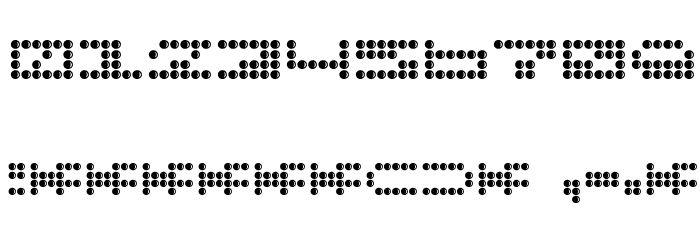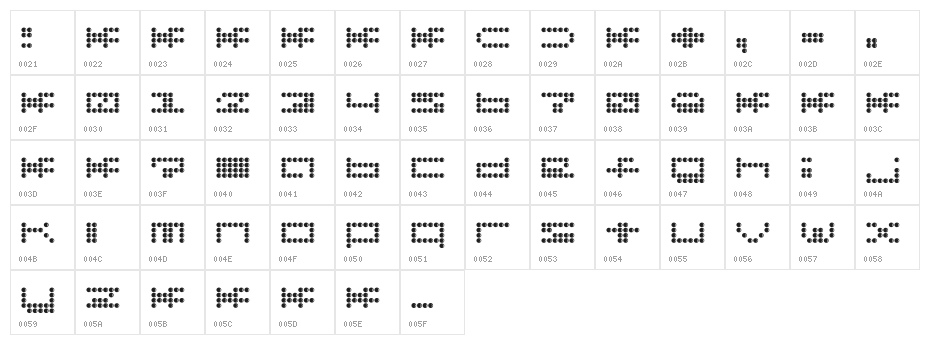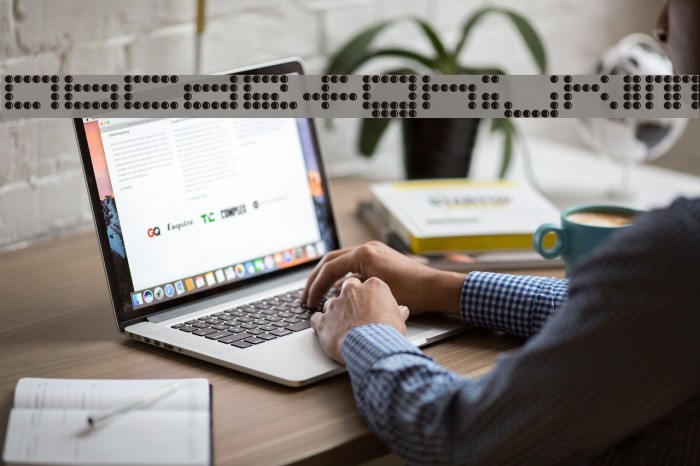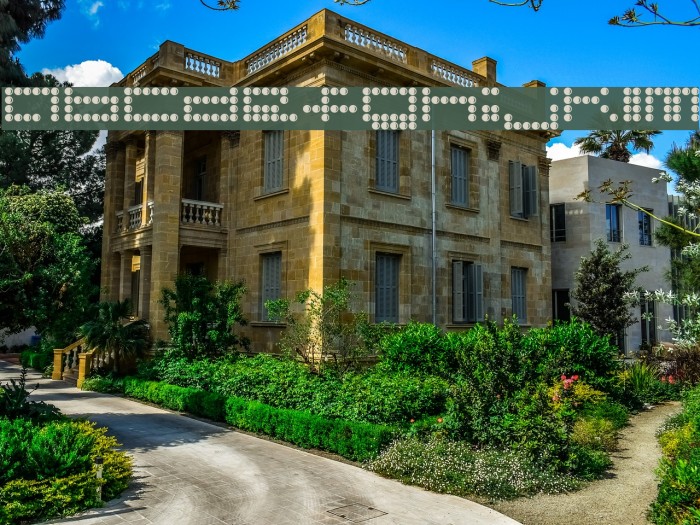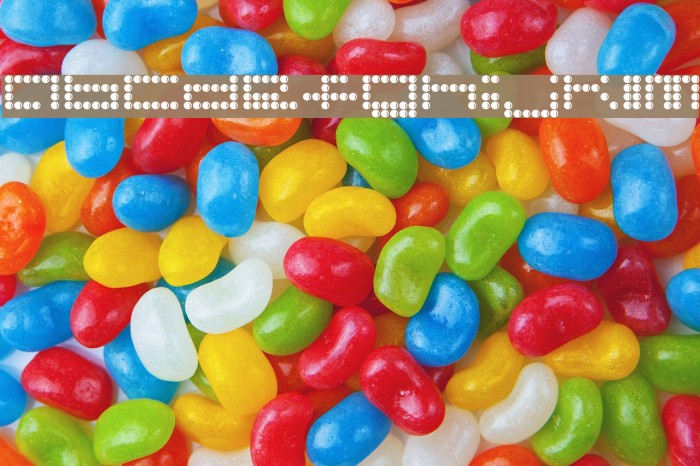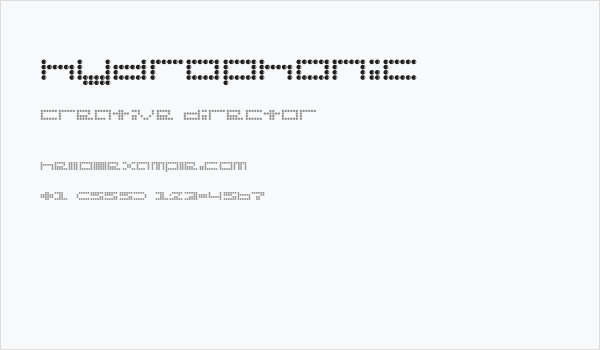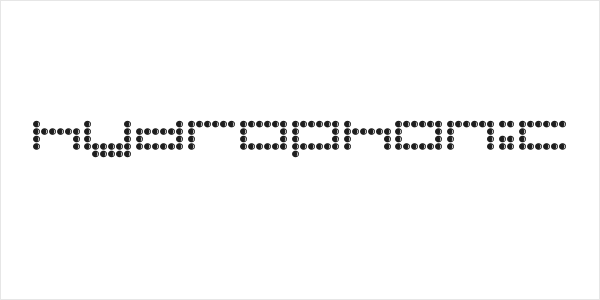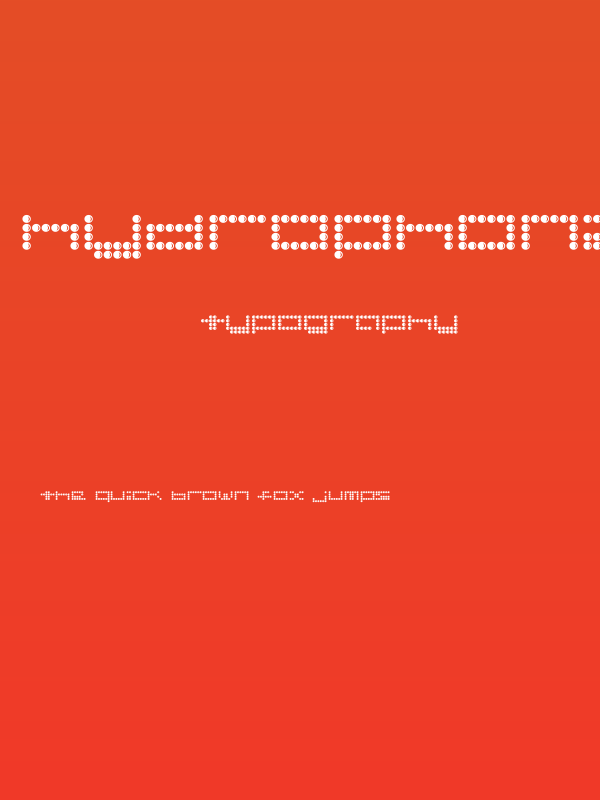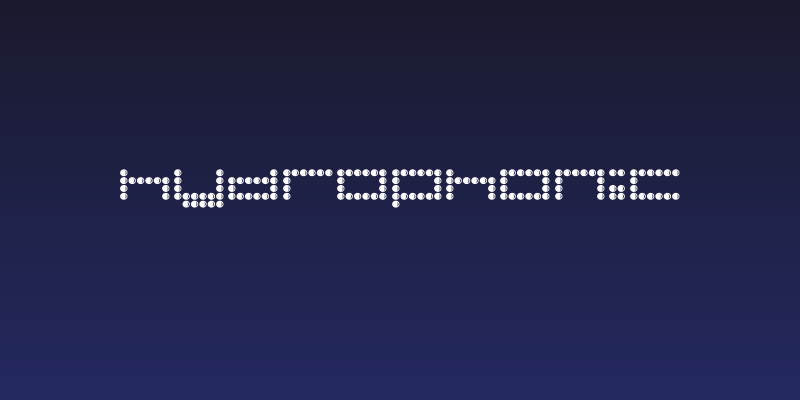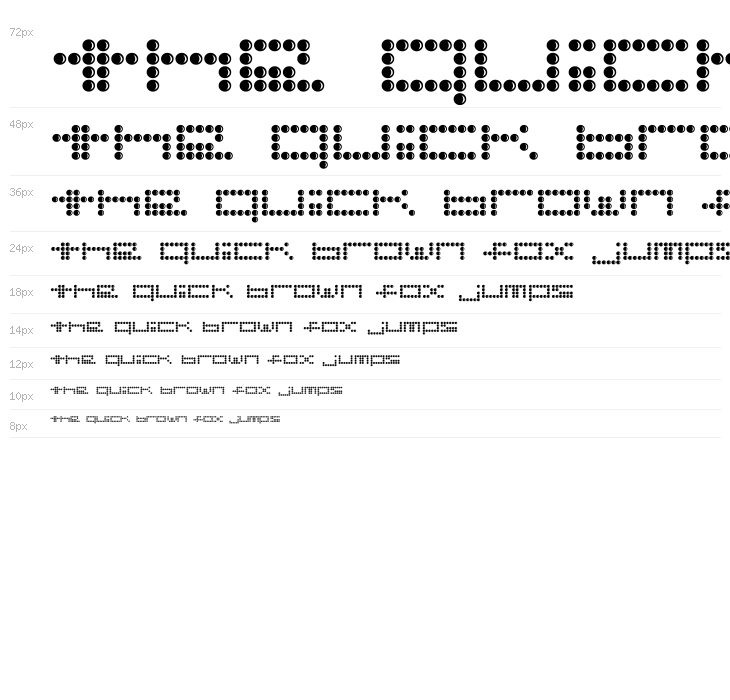
Hydrophonic Font
Hydrophonic Description
This font features a unique design composed entirely of small, evenly spaced dots forming each character. The style is highly geometric and structured, giving it a modern and digital appearance. Each letter and number is crafted with precision, maintaining uniformity across the set. The font's dotted pattern creates a sense of rhythm and movement, making it visually engaging. It is particularly suitable for creative and tech-oriented projects, where a futuristic or digital aesthetic is desired. The characters are easily distinguishable, despite the unconventional design, ensuring readability.
| Use Case | Logos, Headlines, Digital displays |
| Proposed Projects | Ideal for digital art, tech branding, futuristic designs, and creative posters. |